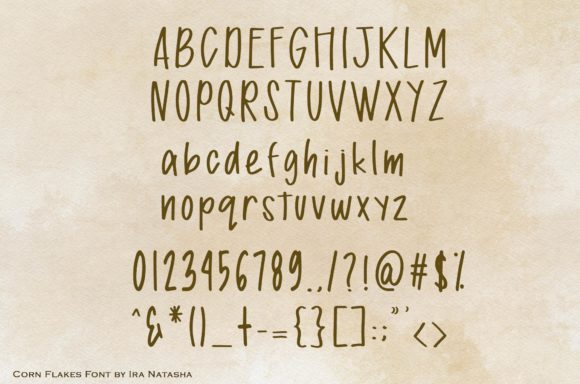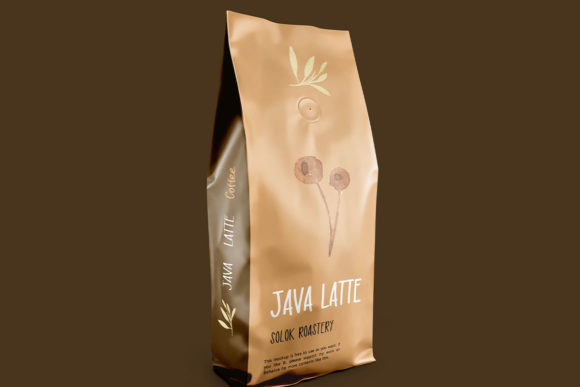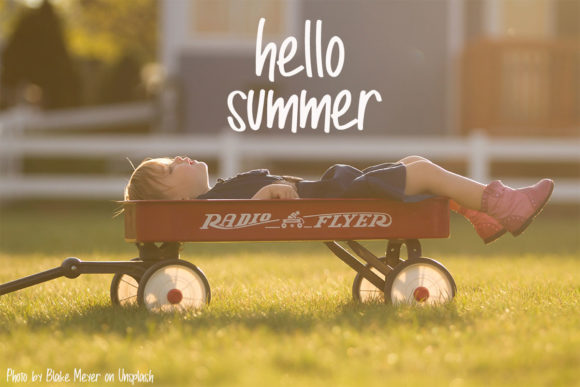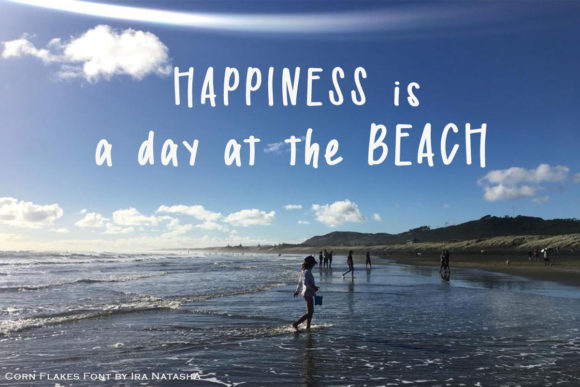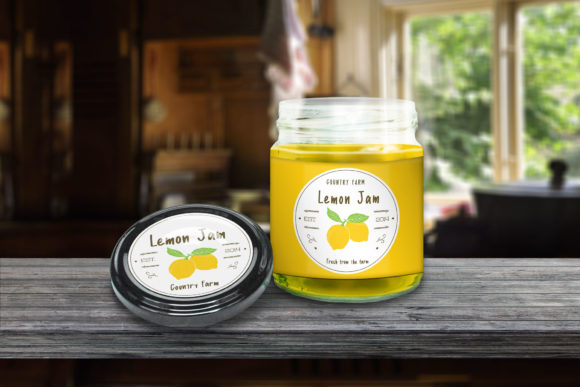
Corn Flakes Font: Elevate Your Designs with a Smooth Handwritten Touch
Are you tired of using the same old fonts in your designs? Look no further than Corn Flakes Font, a smooth handwritten font with a casual touch that’s perfect for taking your projects to the next level. In this article, we’ll dive into the world of Corn Flakes Font and explore its features, benefits, and uses, helping you to make the most of this versatile and stylish font.
What is Corn Flakes Font?
Corn Flakes Font is a beautifully crafted handwritten font that’s designed to add a touch of elegance and sophistication to your designs. With its smooth, flowing lines and casual feel, this font is perfect for a wide range of projects, from logos and branding to greeting cards, packaging, and more.
One of the standout features of Corn Flakes Font is its versatility. Whether you’re looking to create a bold and eye-catching design or a more subtle and understated one, this font is up to the task. Its unique blend of elegance and playfulness makes it an excellent choice for designers and crafters looking to add a personal touch to their work.
Features of Corn Flakes Font
So, what makes Corn Flakes Font so special? Here are just a few of its key features:
- Smooth Handwritten Lines: Corn Flakes Font features smooth, flowing lines that give it a natural, handwritten feel.
- Casual Touch: This font has a relaxed, casual vibe that’s perfect for creating designs that feel approachable and friendly.
- Highly Versatile: Whether you’re working on a logo, greeting card, or packaging design, Corn Flakes Font is up to the task.
- Elegant and Sophisticated: Despite its casual feel, Corn Flakes Font has an undeniable air of elegance and sophistication.
Uses for Corn Flakes Font
So, what can you use Corn Flakes Font for? The possibilities are endless! Here are a few ideas to get you started:
- Logos and Branding: Create a memorable and stylish logo for your business or brand with Corn Flakes Font.
- Greeting Cards: Add a personal touch to your greeting cards with this beautiful handwritten font.
- Packaging Design: Elevate your packaging designs with Corn Flakes Font’s elegant and sophisticated feel.
- Social Media Graphics: Use Corn Flakes Font to create eye-catching social media graphics that stand out from the crowd.
Why Choose Corn Flakes Font?
With so many fonts to choose from, why should you choose Corn Flakes Font? Here are just a few reasons:
- Unique and Eye-Catching: Corn Flakes Font is a standout font that’s sure to grab attention.
- Easy to Read: Despite its elegant feel, Corn Flakes Font is highly legible and easy to read.
- Highly Versatile: This font can be used for a wide range of projects, from logos and branding to packaging and more.
- Supports Multiple Languages: Corn Flakes Font supports multiple languages, making it a great choice for designers working on international projects.
Tips for Using Corn Flakes Font
Here are a few tips for getting the most out of Corn Flakes Font:
- Experiment with Different Sizes: Corn Flakes Font looks great in a variety of sizes, so don’t be afraid to experiment.
- Pair with Other Fonts: Try pairing Corn Flakes Font with other fonts to create a unique and eye-catching design.
- Use for Headings and Titles: Corn Flakes Font is perfect for headings and titles, where its elegant feel can really shine.
In conclusion, Corn Flakes Font is a smooth handwritten font with a casual touch that’s perfect for elevating a wide range of design projects. With its unique blend of elegance and playfulness, this font is sure to grab attention and leave a lasting impression. Whether you’re a designer, crafter, or DIY enthusiast, Corn Flakes Font is a great choice for anyone looking to add a personal touch to their work.